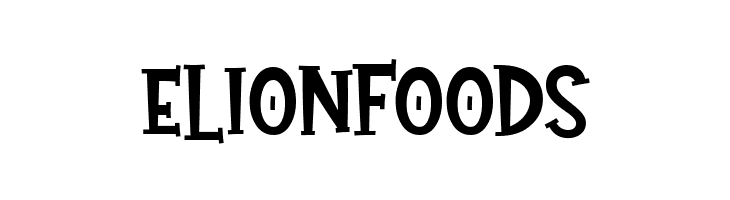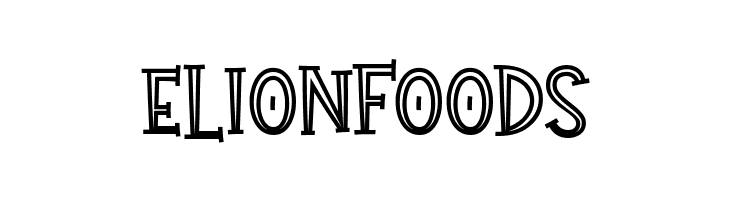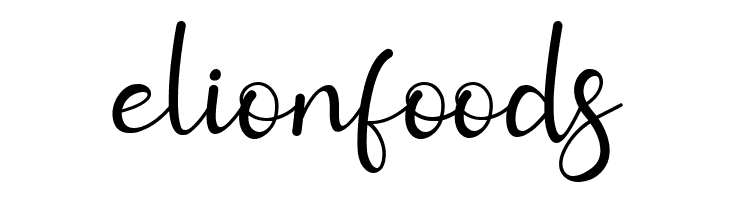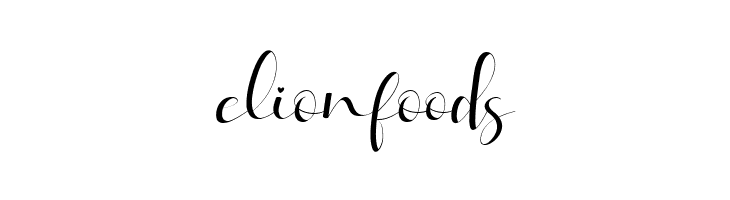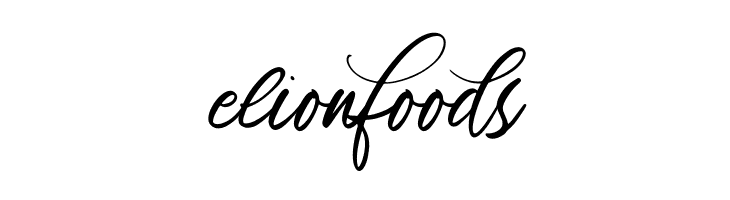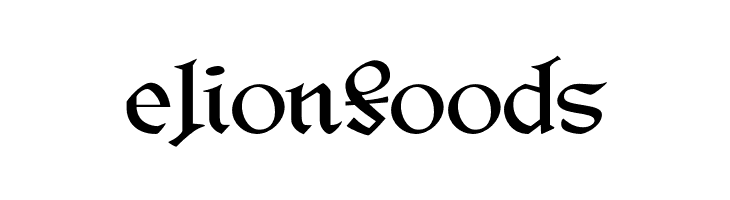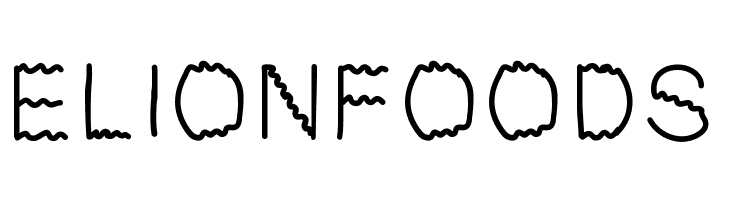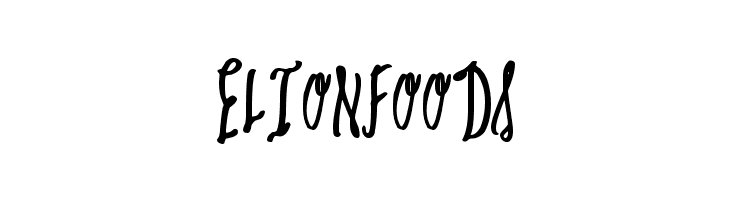
An elegant, cursive font with dynamic strokes and artistic flourishes.
A graceful and flowing script font with a handwritten style.
An elegant and decorative script font with intricate swashes.
A playful, wavy font with zigzag lines creating a whimsical appearance.
A classic blackletter font with sharp, angular lines and ornate detailing.
A playful, hand-drawn font with bold, irregular characters and exaggerated serifs.
A playful, hollow decorative font with bold strokes and whimsical style.
A bold, artistic handwritten font with dynamic, slanted characters.